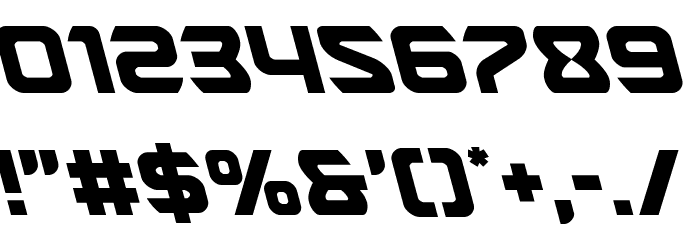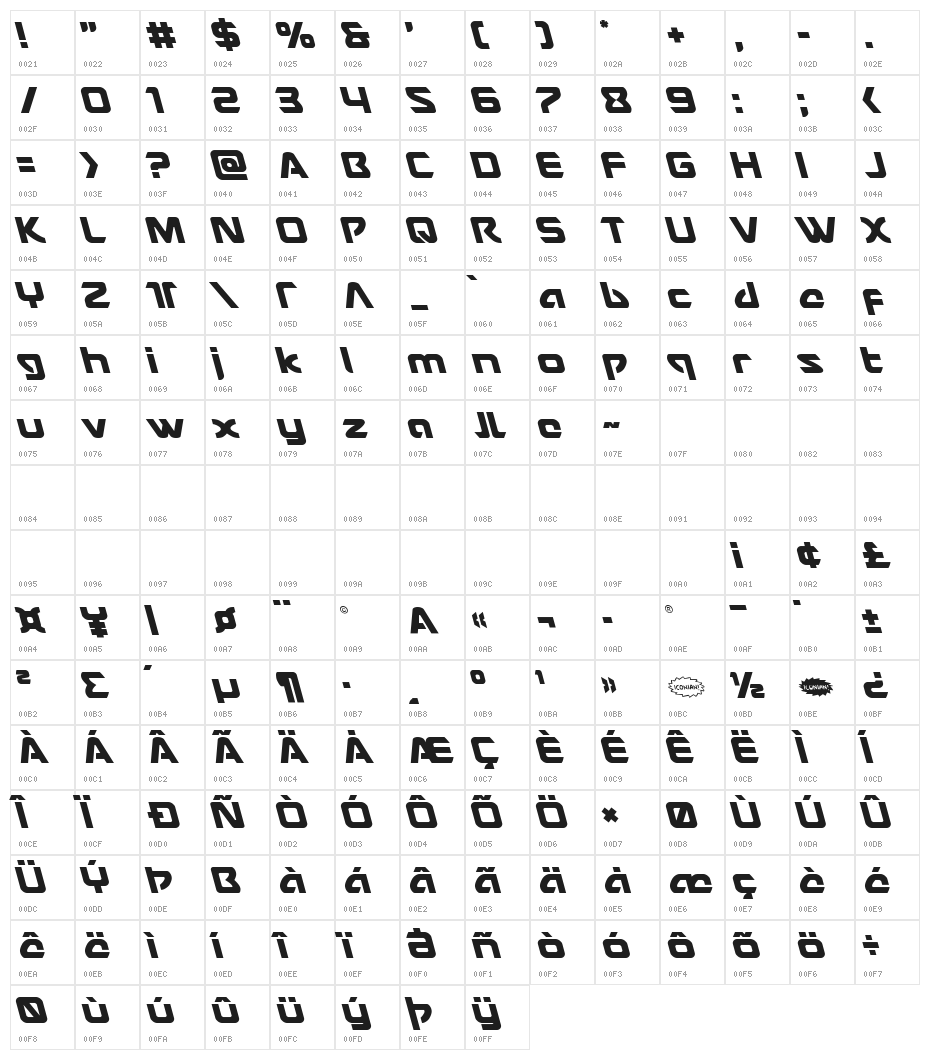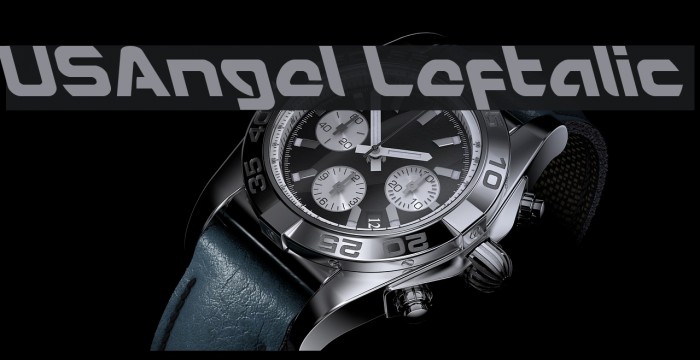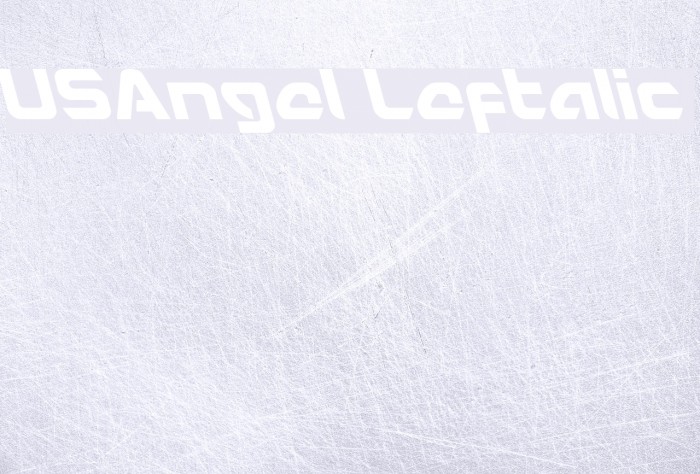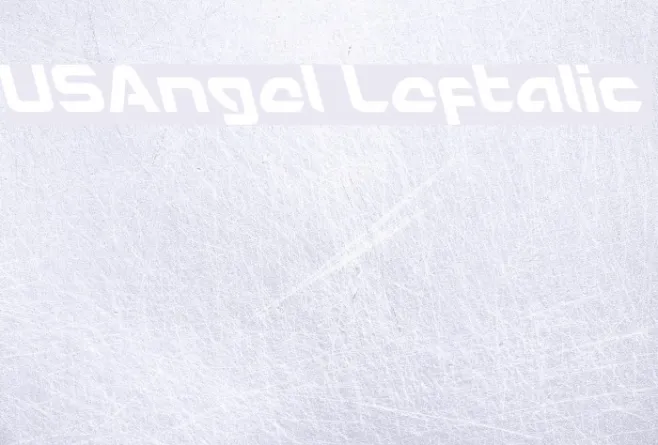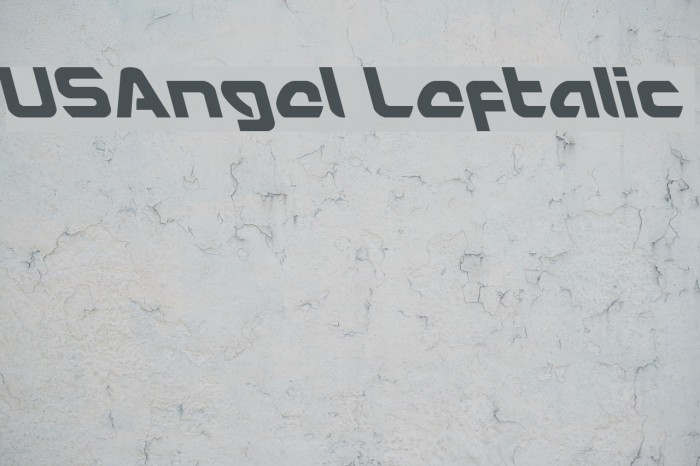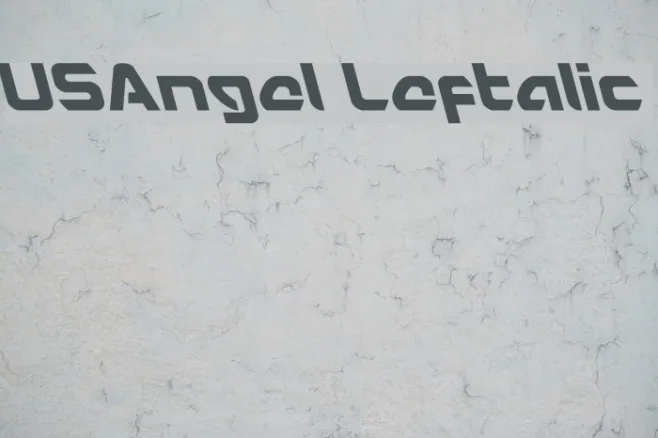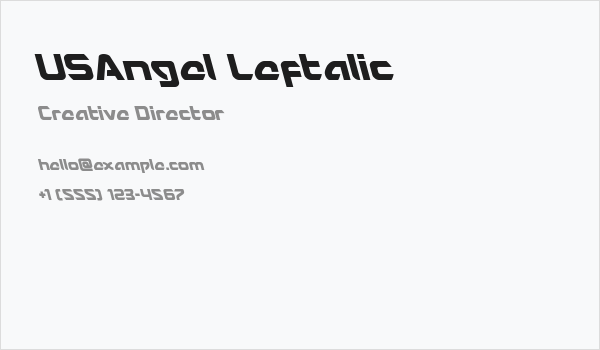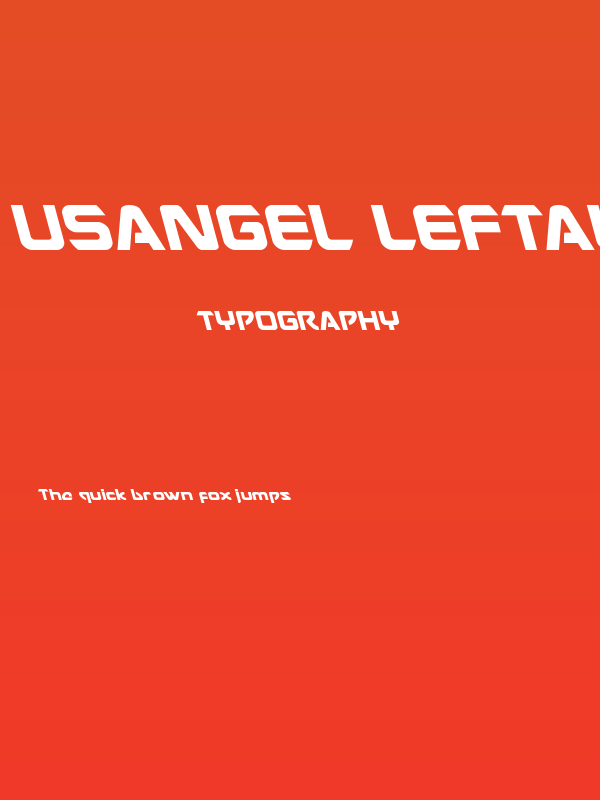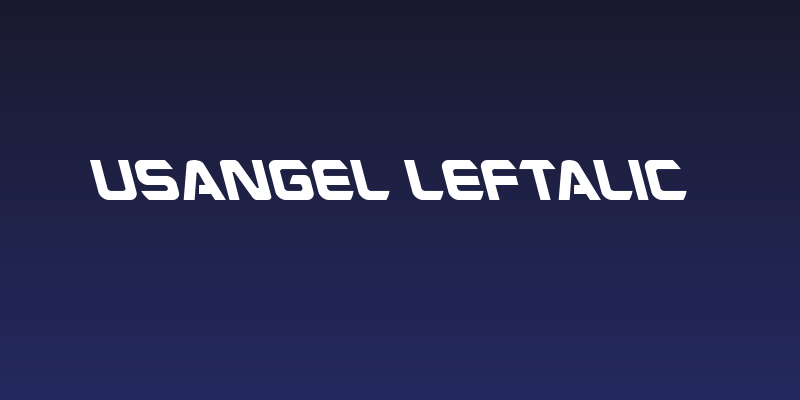
USAngel Leftalic Font
USAngel Leftalic Description
This font features a bold, angular design with a futuristic and dynamic appearance. The characters are slightly slanted, giving a sense of motion and energy. Each letter is crafted with sharp edges and geometric shapes, creating a modern and edgy look. The uppercase and lowercase letters maintain a consistent style, with the lowercase being slightly more compact. Numbers and special characters follow the same design principles, ensuring uniformity across the font. The overall aesthetic is suitable for projects that require a strong, impactful visual presence.
| Use Case | Logos, Headlines |
| Proposed Projects | Ideal for technology branding, sports team logos, video game titles, and sci-fi themed designs. |